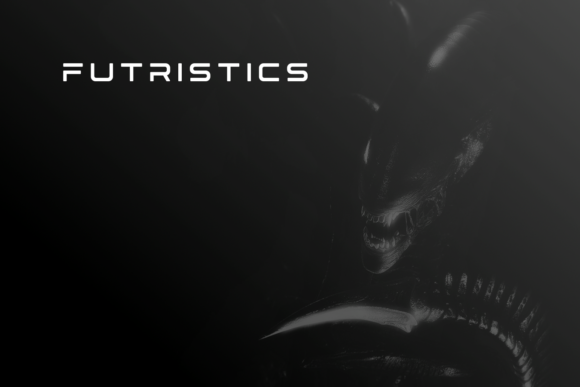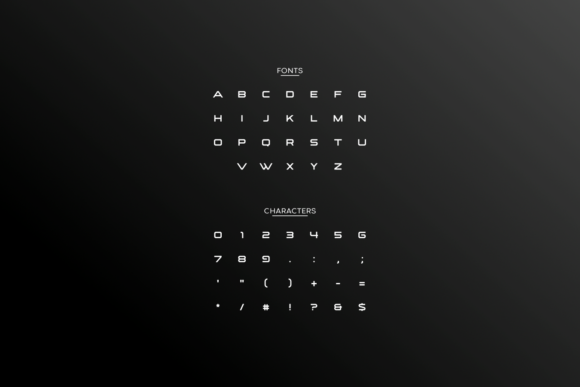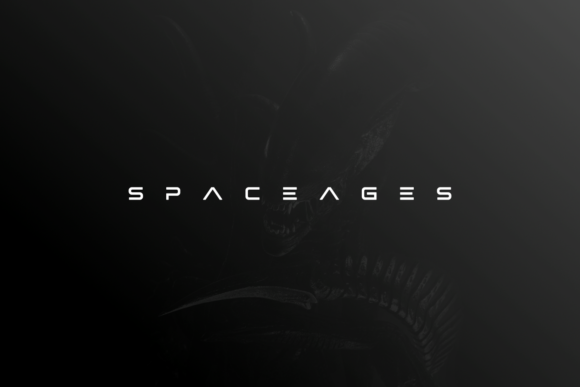
Gecorus Font: A Futuristic Display Font for Modern Creations
In the world of typography, fonts play a crucial role in conveying the tone and aesthetic of a design. For designers and crafters looking for a font that embodies a futuristic and modern vibe, Gecorus Font is an excellent choice. Inspired by science fiction films and books, Gecorus is a display font that exudes a sense of minimalism, elegance, and sophistication.
The Inspiration Behind Gecorus Font
Gecorus Font draws inspiration from the futuristic and often dystopian worlds depicted in science fiction films and books. The font’s creator aimed to capture the essence of these futuristic settings, where technology and innovation reign supreme. As a result, Gecorus boasts a unique and captivating design that is sure to grab attention.
Key Features of Gecorus Font
So, what makes Gecorus Font stand out from the rest? Here are some of its key features:
- Minimalistic Design: Gecorus Font is characterized by its clean and minimalistic design. The font’s sleek lines and curves give it a modern and elegant look, making it perfect for designs that require a touch of sophistication.
- Futuristic Aesthetic: The font’s futuristic aesthetic is inspired by science fiction films and books. This makes Gecorus an excellent choice for designers looking to create designs that evoke a sense of innovation and forward-thinking.
- Versatility: Gecorus Font is a versatile font that can be used for a wide range of design projects, including movies, posters, logos, labels, web fonts, and other modern creations.
Use Cases for Gecorus Font
Gecorus Font is a versatile font that can be used in various design projects. Here are some use cases where Gecorus excels:
- Movie Posters: Gecorus Font is perfect for creating eye-catching movie posters that require a futuristic and modern look.
- Logo Design: The font’s sleek and minimalistic design makes it an excellent choice for logo design, particularly for companies that operate in the tech or innovation sectors.
- Web Fonts: Gecorus Font can be used as a web font to add a touch of modernity and sophistication to websites.
- Labels and Packaging: The font’s futuristic aesthetic makes it an excellent choice for labels and packaging design, particularly for products that require a modern and innovative look.
Why Choose Gecorus Font?
With so many fonts available, why choose Gecorus Font? Here are some reasons why designers and crafters should consider Gecorus:
- Unique Design: Gecorus Font boasts a unique and captivating design that is sure to grab attention.
- High-Quality: The font is designed to high-quality standards, ensuring that it looks great in various design projects.
- Easy to Read: Despite its futuristic aesthetic, Gecorus Font is easy to read, making it perfect for designs that require a clear and concise message.
In conclusion, Gecorus Font is an excellent choice for designers and crafters looking for a futuristic display font that embodies a sense of minimalism, elegance, and sophistication. With its unique design, versatility, and high-quality standards, Gecorus Font is perfect for a wide range of design projects, from movie posters to logo design, web fonts, and labels. Whether you’re looking to create a modern and innovative design or simply want to add a touch of sophistication to your project, Gecorus Font is an excellent choice.